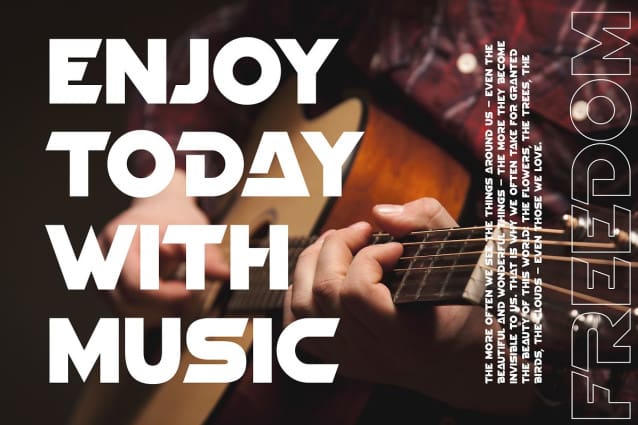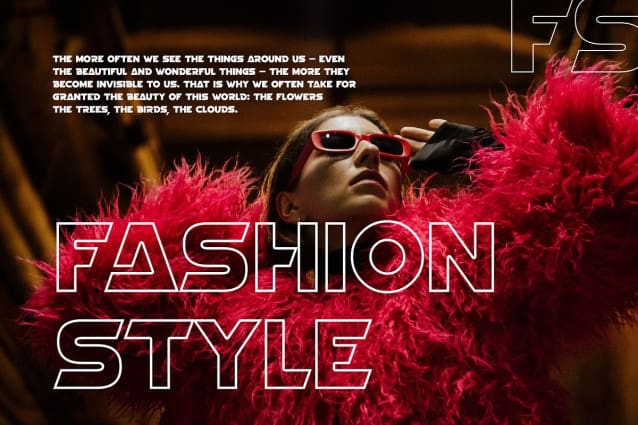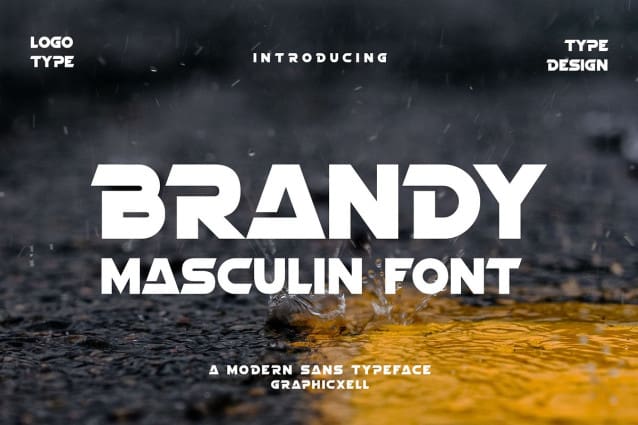
Brandy Font
Brandy Font – Masculine Sans Typeface inspired by the famous minimalist logo perfect for the purposes of designing templates, brochures, videos, advertising branding, logos, invitation, layout design, elegant crafting, beauty design and more.